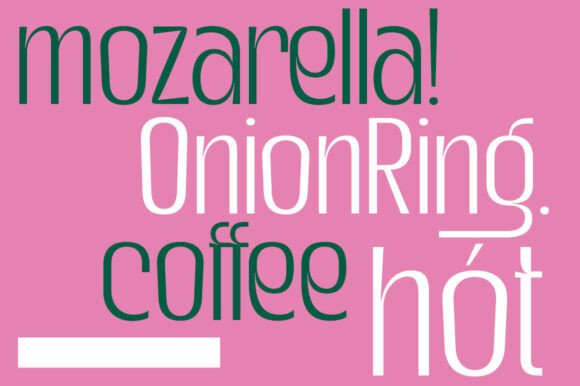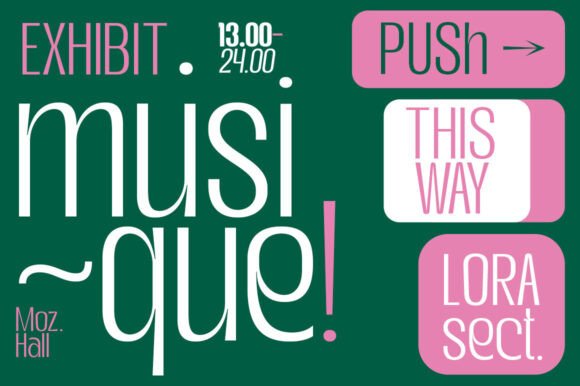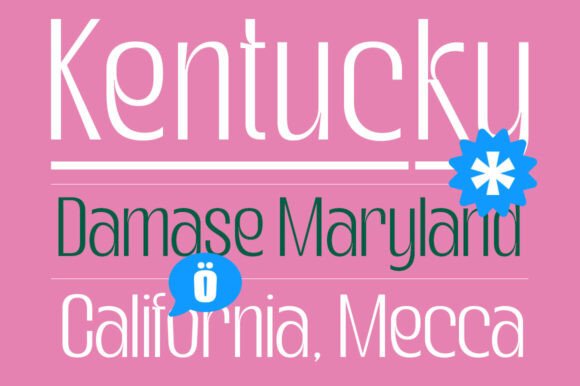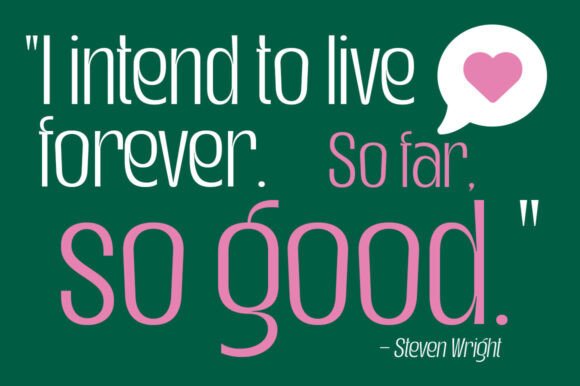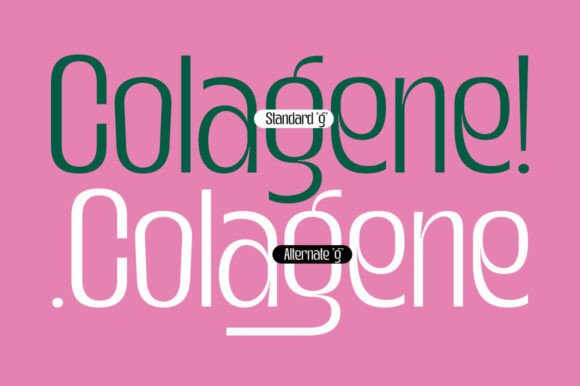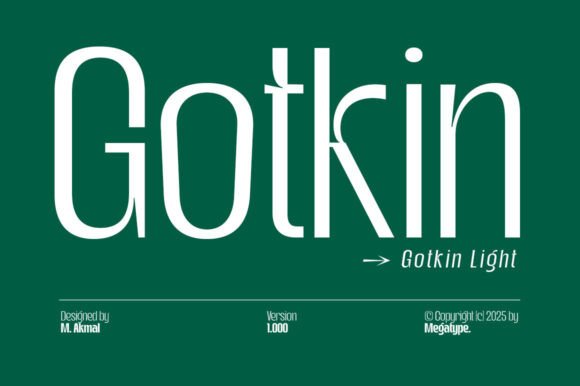
Introducing Gotkin Light Font: The Epitome of Modern Strength and Sophistication
In the realm of typography, fonts play a pivotal role in conveying messages, evoking emotions, and establishing brand identities. Among the myriad of fonts available, Gotkin Light Font stands out as a beacon of modern strength and dynamism. This sans serif font family is meticulously designed to cater to the needs of professionals seeking a blend of clarity, style, and versatility. In this article, we’ll delve into the features, applications, and benefits of Gotkin Light Font, exploring why it has become a go-to choice for corporate branding, digital interfaces, and editorial designs.
The Design Philosophy of Gotkin Light Font
Gotkin Light Font is the result of a thoughtful design process aimed at creating a typeface that embodies both warmth and boldness. Its soft curves, coupled with bold geometric shapes, strike a perfect balance between modernity and approachability. This unique combination ensures that Gotkin stands out in various design contexts, from digital platforms to print materials. The font’s clean lines are engineered to provide exceptional readability across different formats, making it an ideal choice for a wide range of applications, from headlines to body text.
Versatility and Readability: The Hallmarks of Gotkin
One of the key advantages of Gotkin Light Font is its versatility. Its design ensures that it remains legible and aesthetically pleasing, whether used in display settings or in more detailed text. This versatility is particularly valuable for professionals who require a font that can seamlessly transition across different mediums and applications. Whether it’s headlines, titles, branding projects, logo designs, packaging, magazine titles, advertisements, or short or long texts, Gotkin excels in every display setting, offering a consistent and impactful visual experience.
Applications of Gotkin Light Font
The applications of Gotkin Light Font are vast and varied. In corporate branding, it helps in establishing a modern and dynamic brand image. For digital interfaces, its clean and readable design ensures a smooth user experience. In editorial designs, Gotkin adds a touch of sophistication and elegance, enhancing the overall appeal of the content. Its suitability for branding projects and logo designs is unmatched, as it can be used to create memorable and impactful brand identities. Moreover, Gotkin’s performance in packaging and magazine titles makes it a favorite among designers looking to make a statement.
Why Choose Gotkin Light Font?
Choosing Gotkin Light Font for your design projects comes with numerous benefits. Firstly, its modern aesthetic ensures that your designs are contemporary and relevant. Secondly, its high readability means that your message will be effectively communicated, regardless of the medium. Thirdly, Gotkin’s versatility allows it to be used across a wide range of applications, making it a valuable addition to any designer’s toolkit. Lastly, its sophisticated yet approachable design ensures that it can be used in both formal and informal contexts, offering unparalleled flexibility.
| Font Name | Gotkin Light Font |
| Author | Megatype |
Gotkin Light Font is more than just a typeface; it’s a design solution that caters to the evolving needs of modern design. Its unique blend of modern strength, dynamism, and sophistication makes it an ideal choice for designers and crafters looking to make an impact. Whether you’re working on a corporate branding project, designing a digital interface, or crafting an editorial piece, Gotkin Light Font offers the perfect combination of style, clarity, and versatility. By incorporating Gotkin into your design projects, you can ensure that your message is conveyed with clarity, style, and impact, setting you apart in a crowded design landscape.